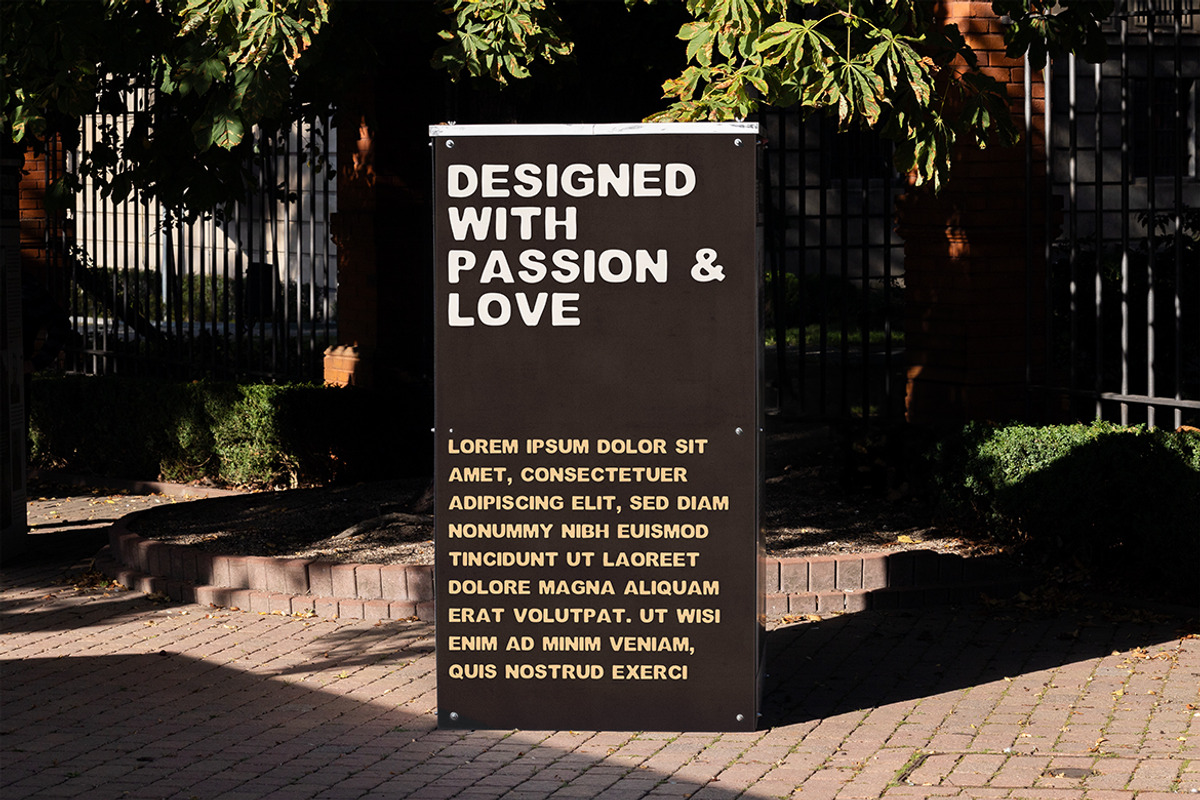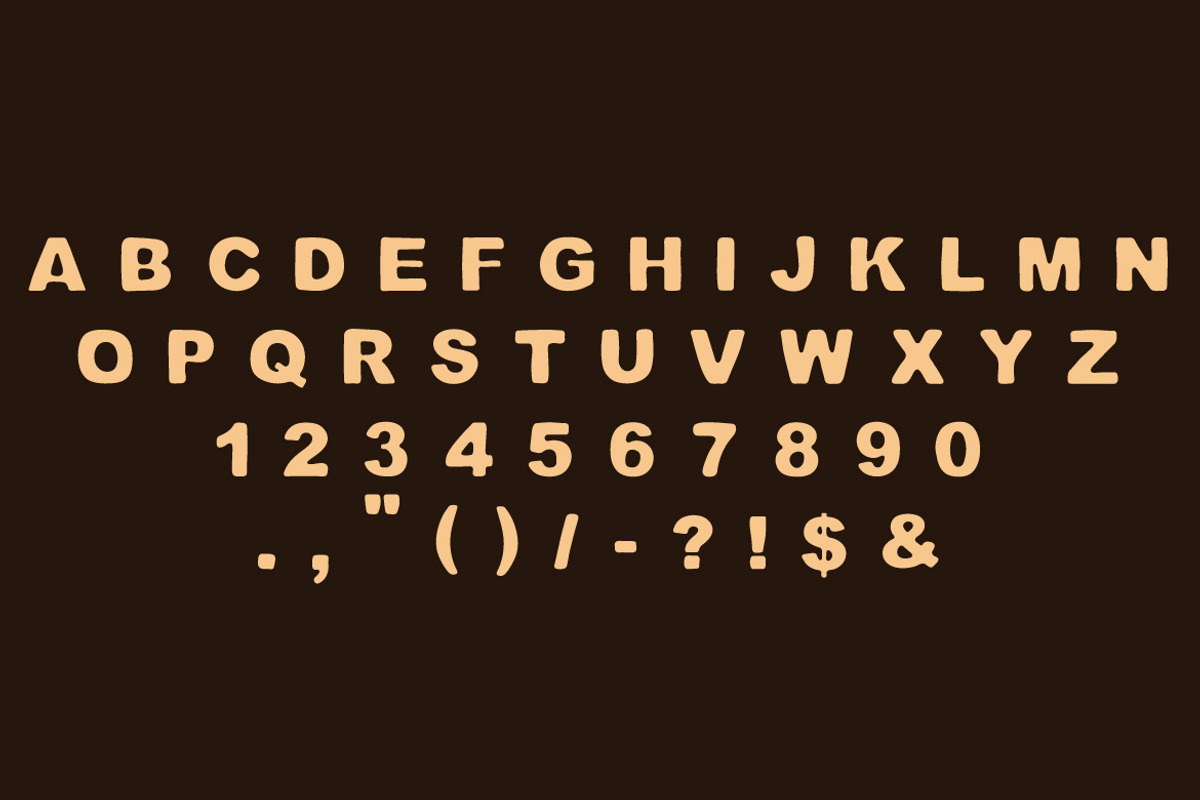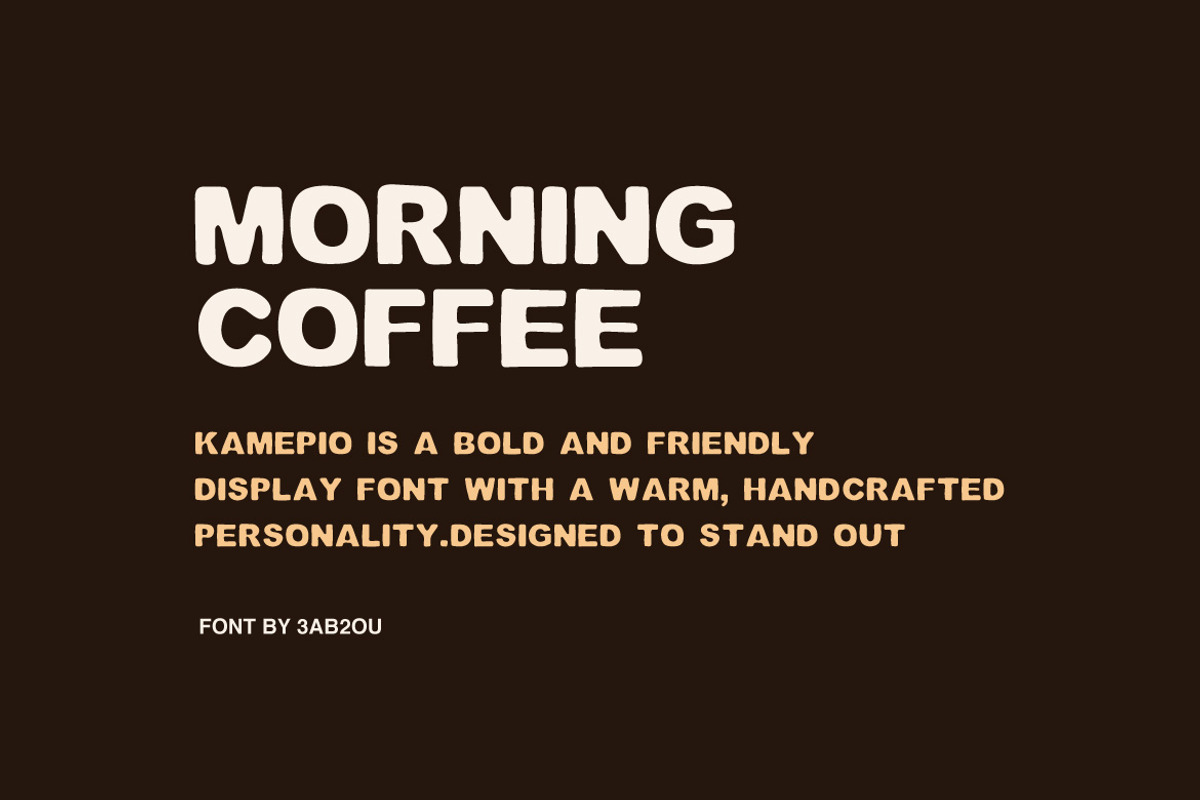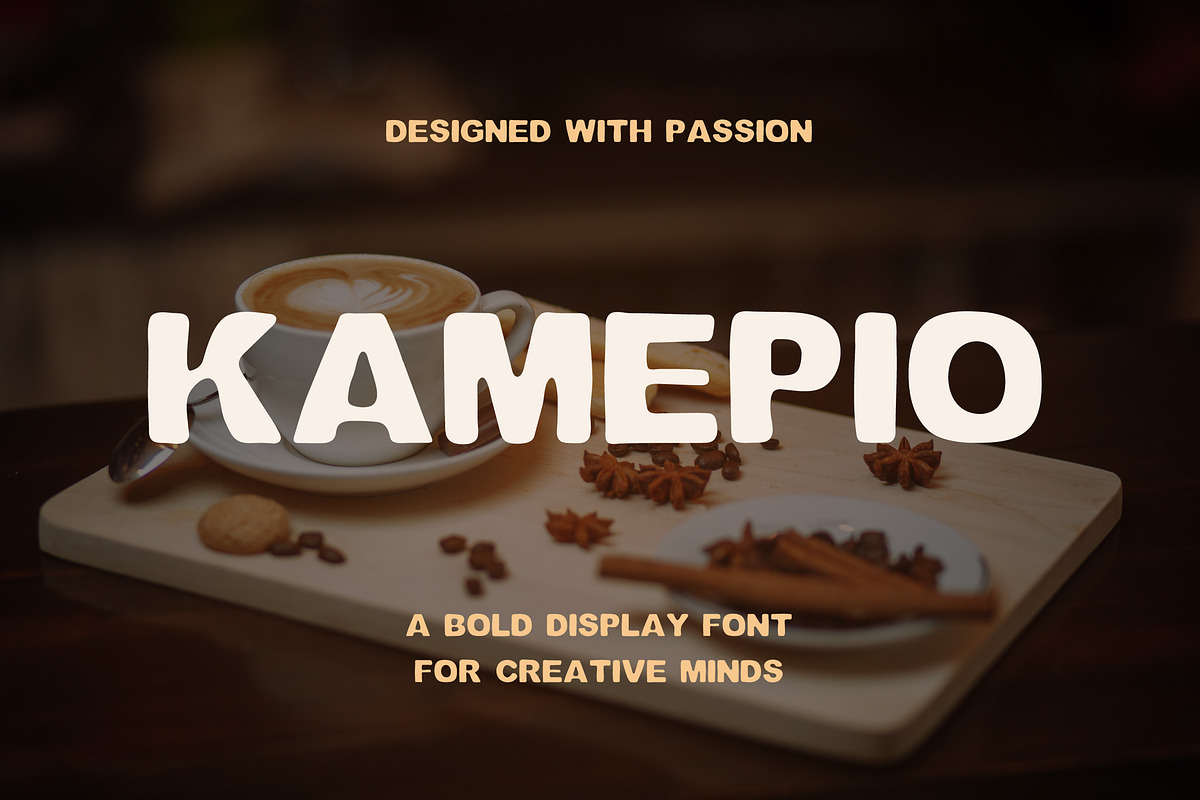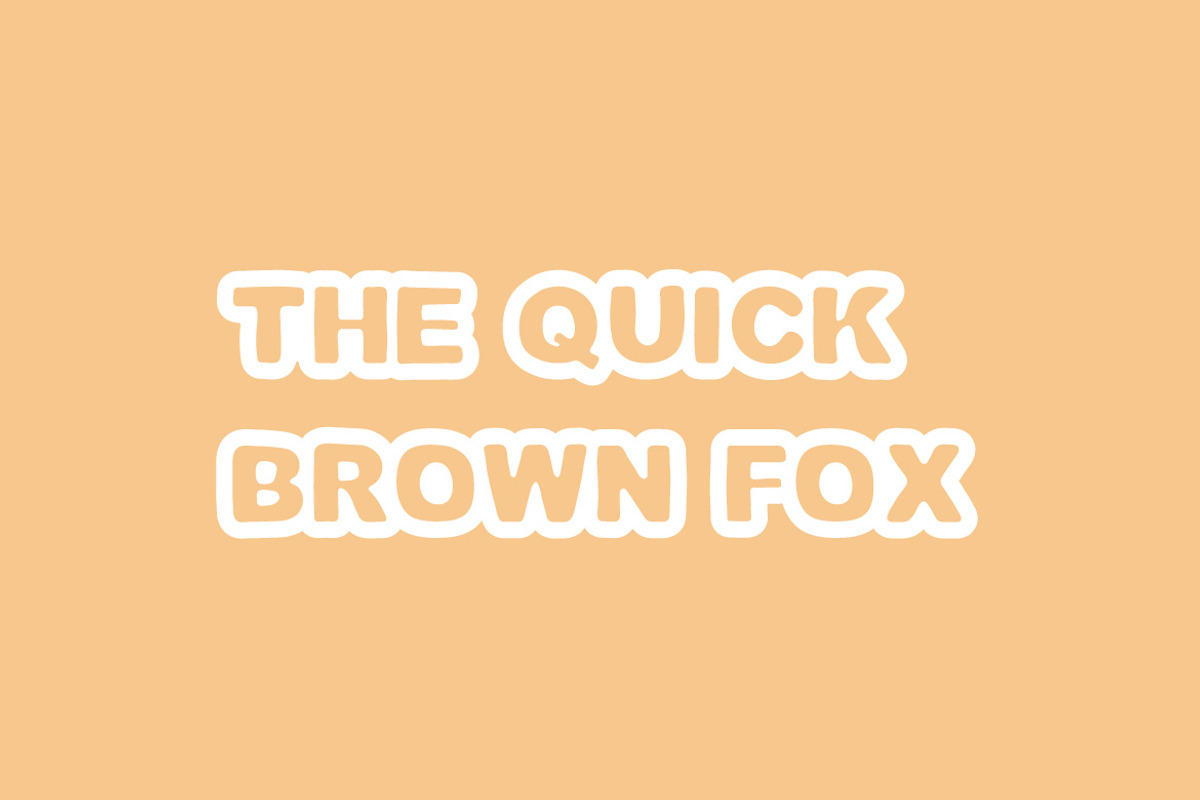
Kamepio -Bold Display Font
Kamepio is a bold and friendly display font with a warm, handcrafted personality. Designed to stand out, it blends playful shapes with strong letterforms, making it perfect for creative projects that need charm and confidence.
This font works beautifully for logos, branding, café and restaurant designs, packaging, posters, social media graphics, headlines, and creative titles. Its soft curves and bold presence give your designs a welcoming, modern feel while staying highly readable.
Kamepio is ideal for designers who want a bold display typeface with character, warmth, and creative energy.